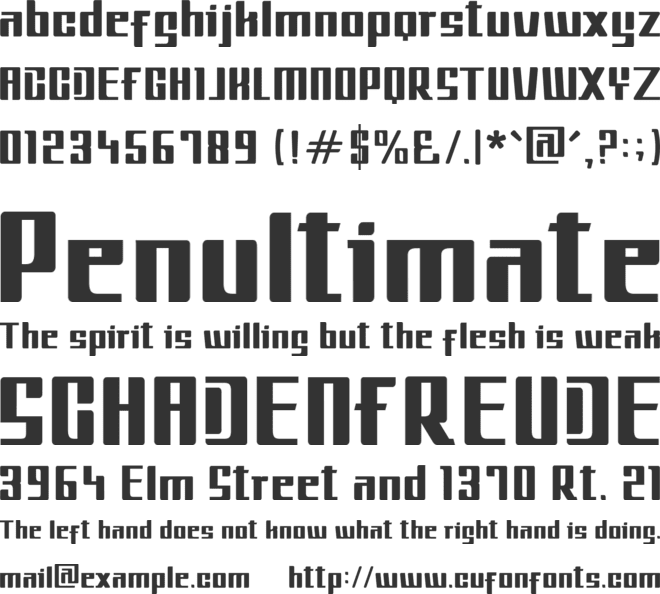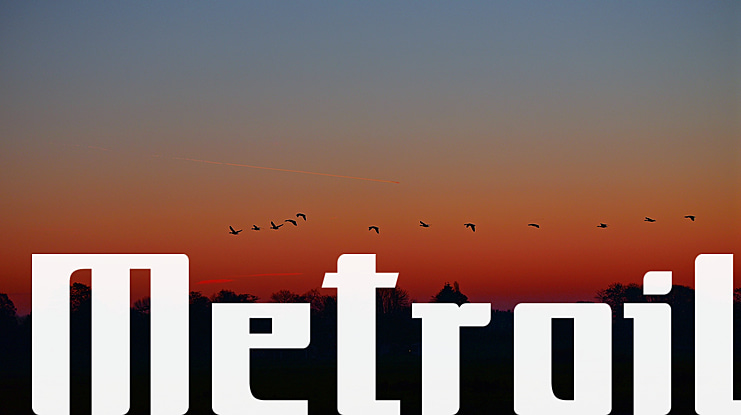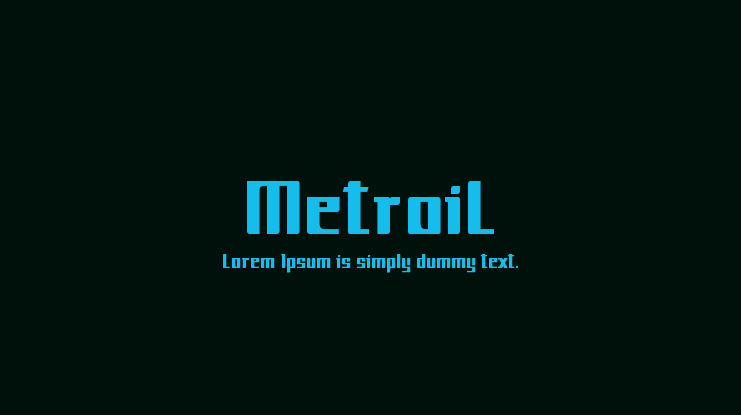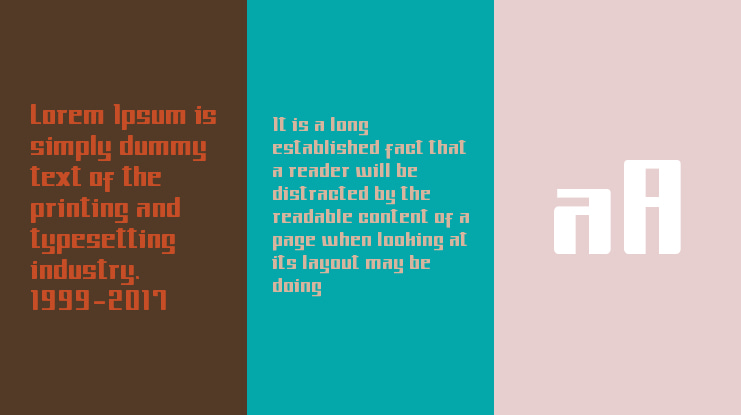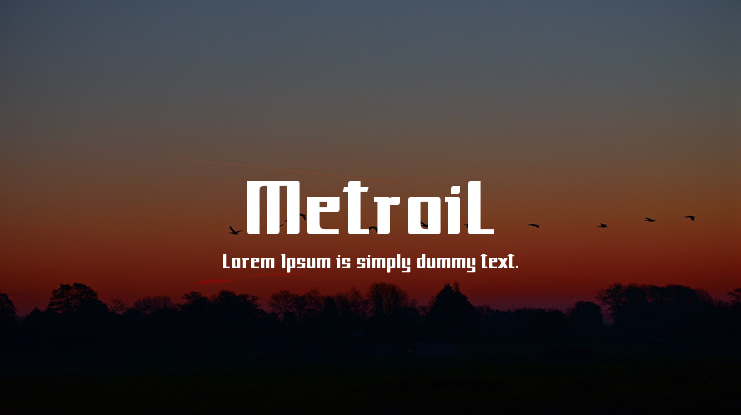
MetroiL Font
Hello! Introduce, this is our product, This product is a Metroil font still family with metrool fonts.
Metroil fonts are also good for use in: Posters, Shirt Numbers, Boxes, and Product Logo Creations.